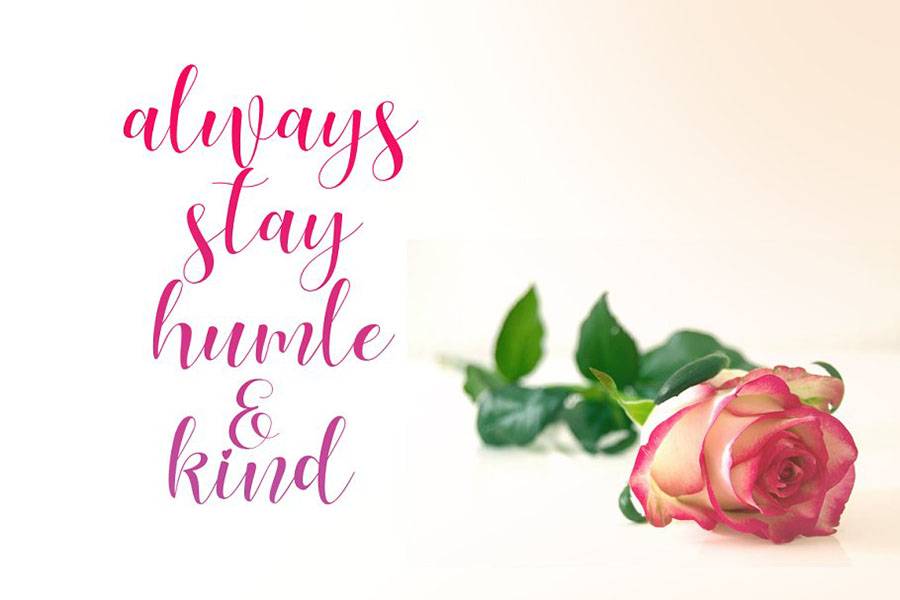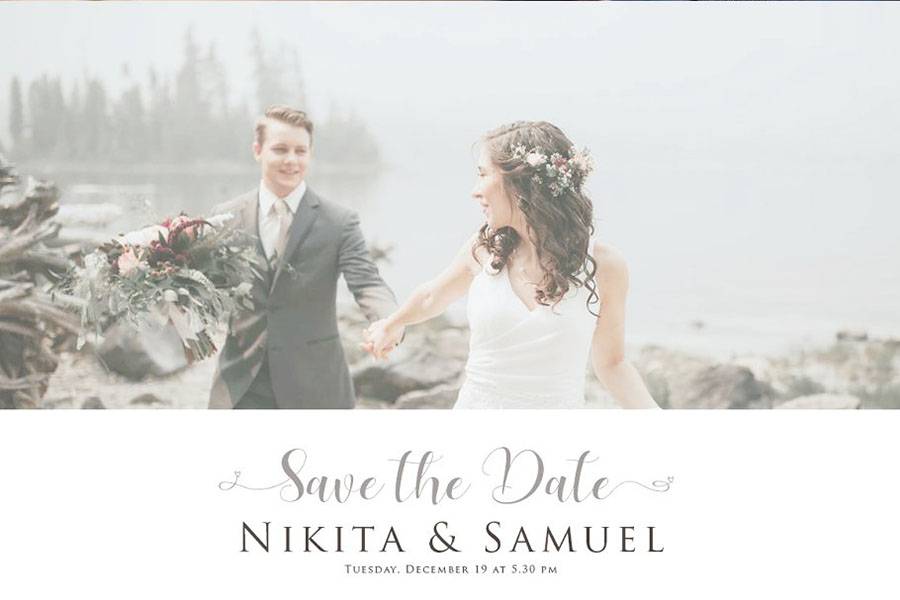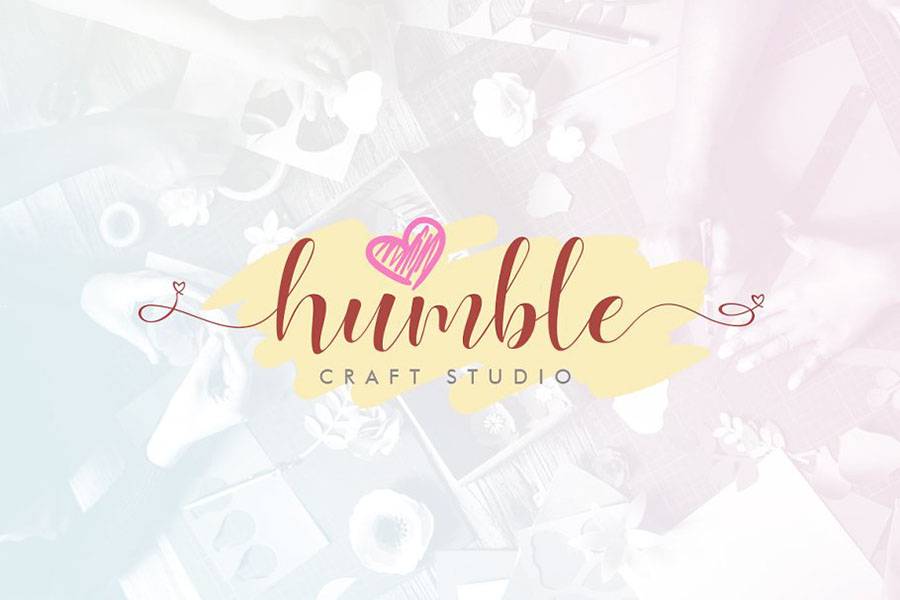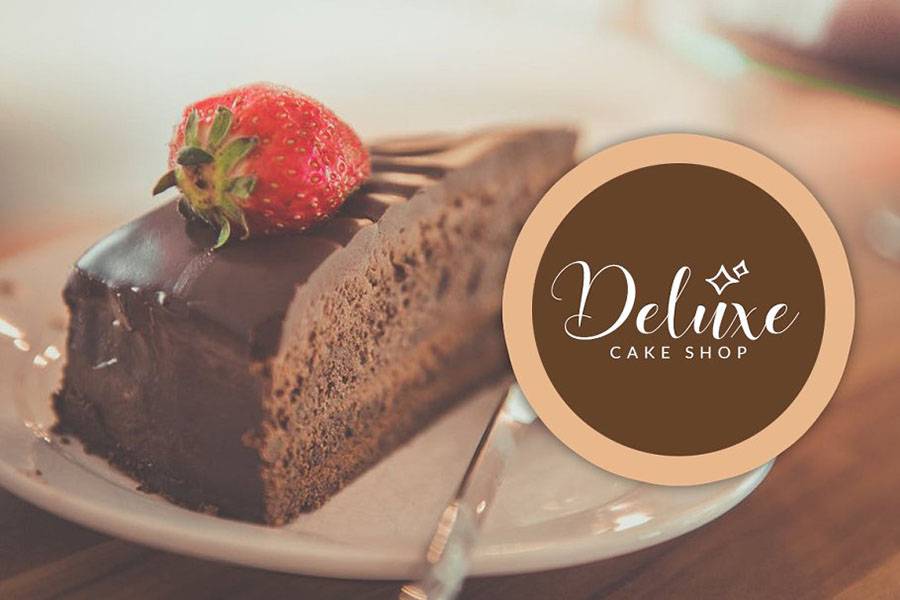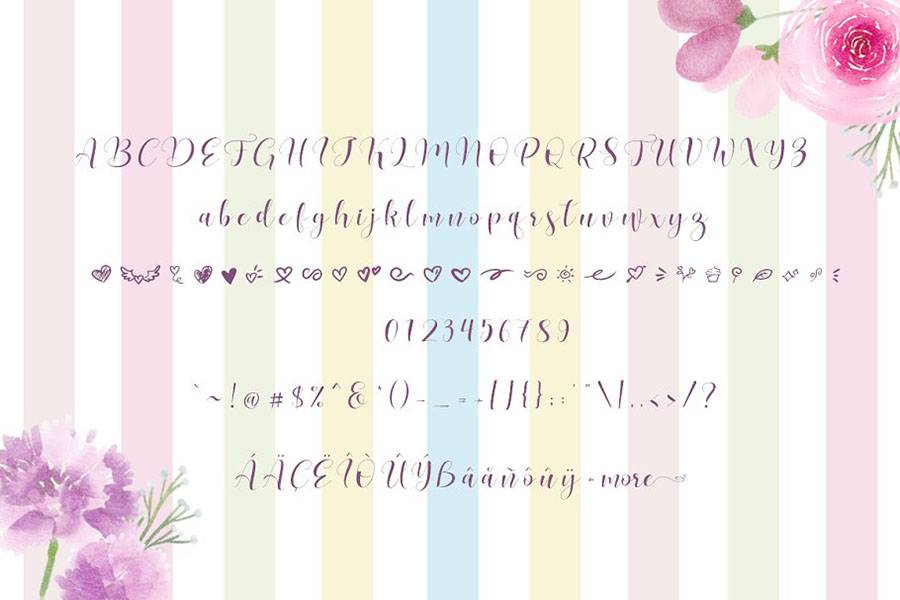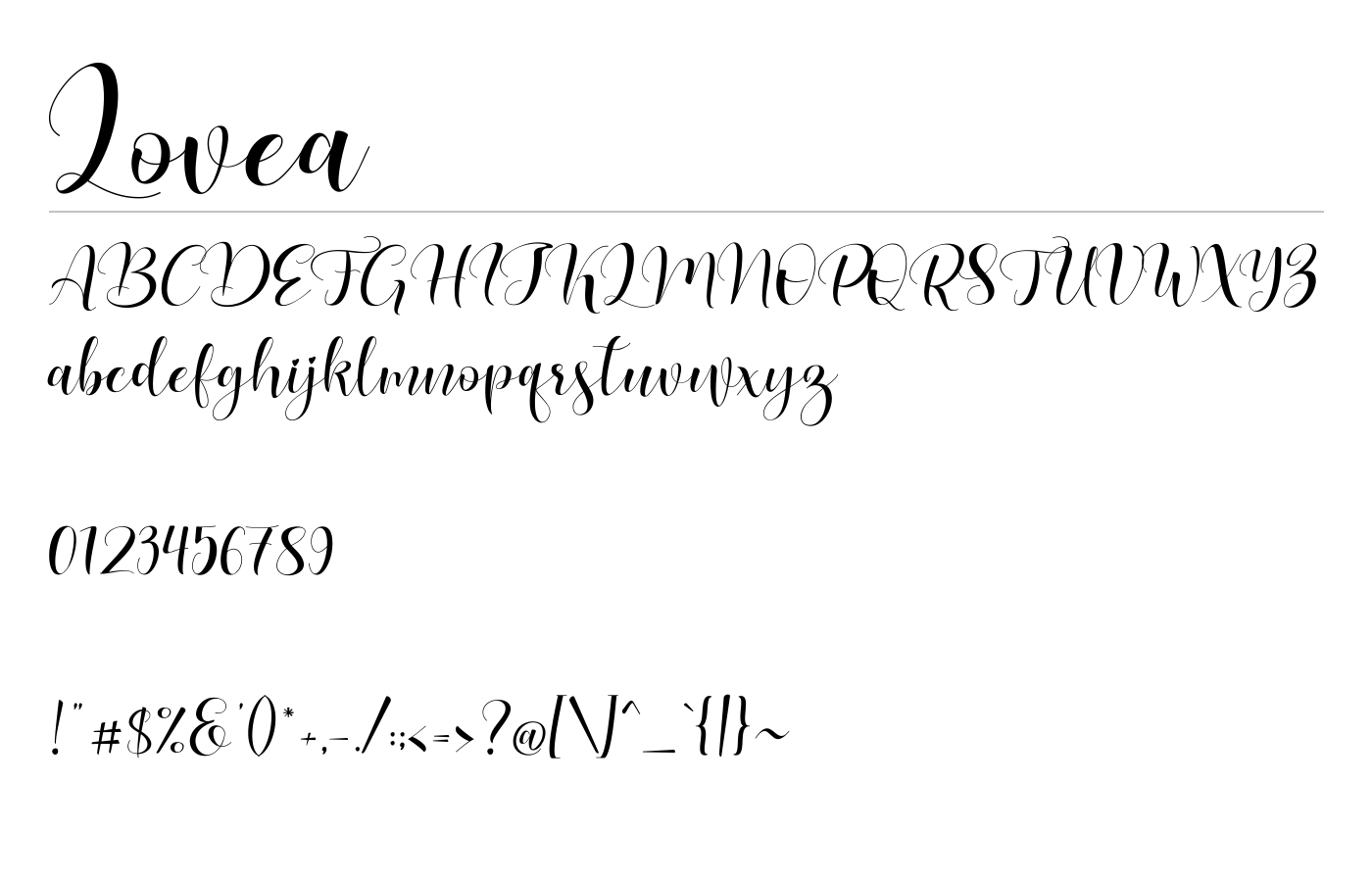
Lovea Handlettering Demo is a delicate script font with elegant, flowing strokes and a graceful handwritten style. Its combination of thin and smooth curved lines creates a refined, romantic feel, making it ideal for wedding invitations, branding, and stylish editorial projects. This font works best where a personal, artistic touch is desired to convey sophistication and charm.
Lovea Handlettering Demo
About Lovea Handlettering Demo
| Font family | Lovea Handlettering Demo |